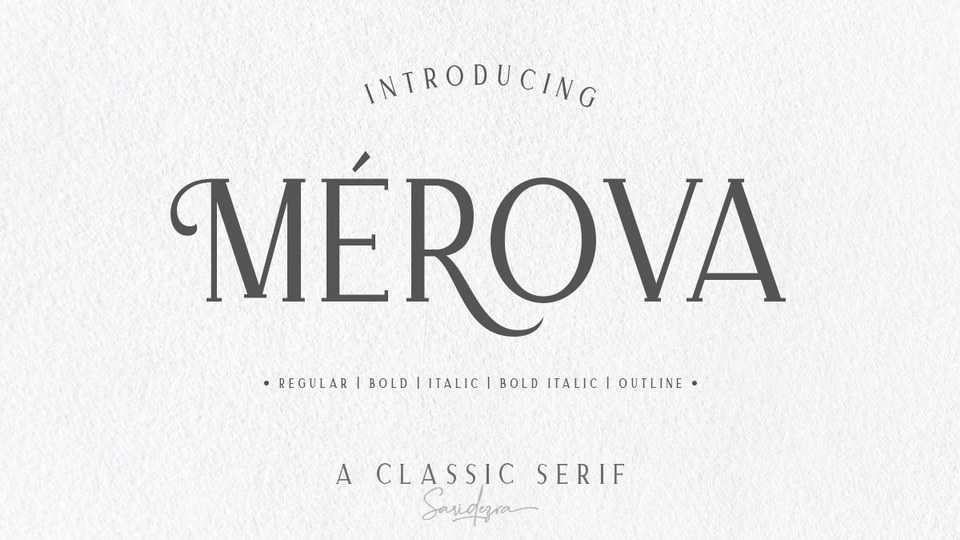
Download Merova font, a classic and elegant serif typeface. Merova contains a bunch of alternates for each characters that will make your presentation or logo even more stunning and stand out.